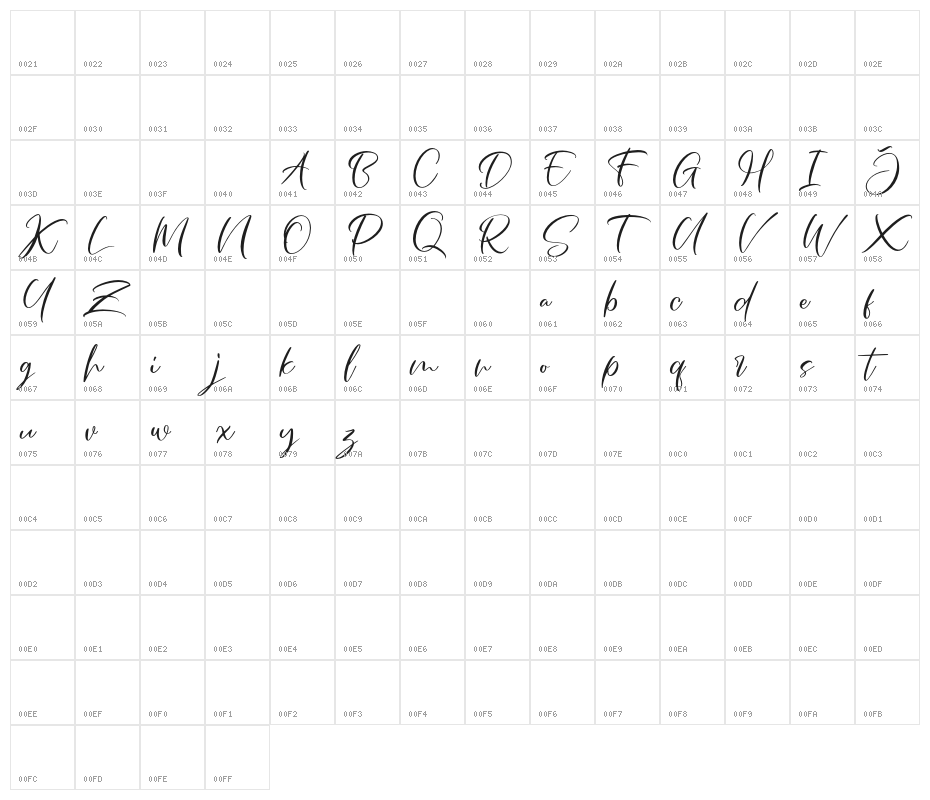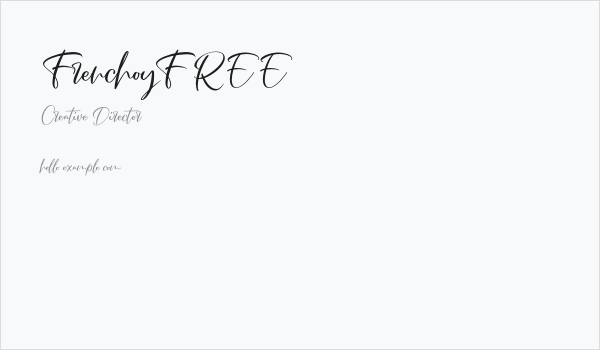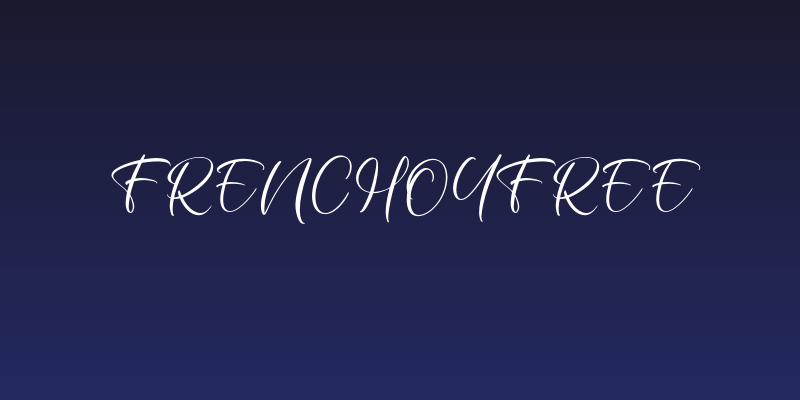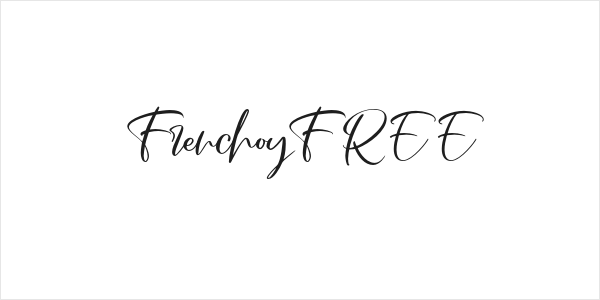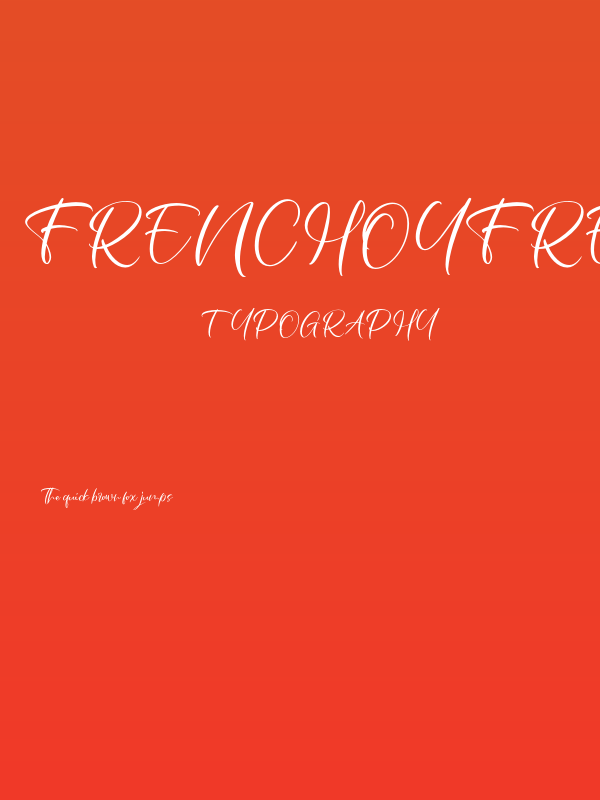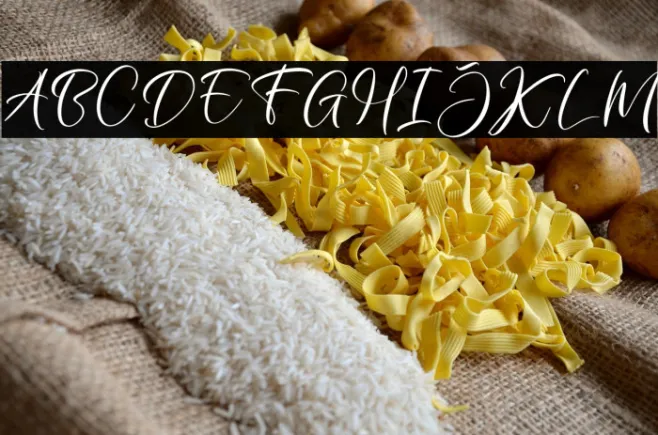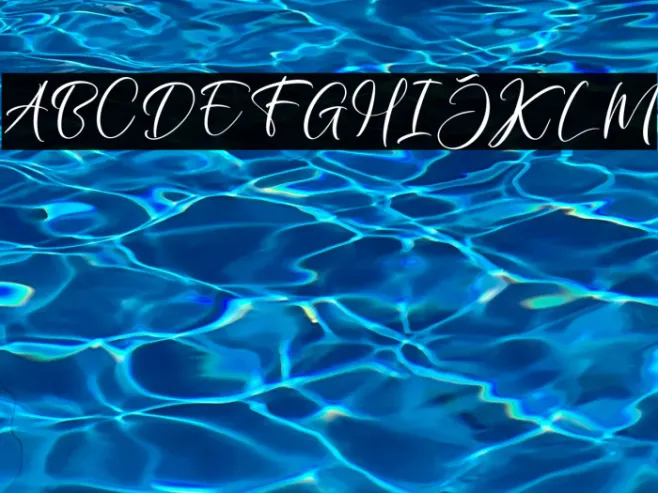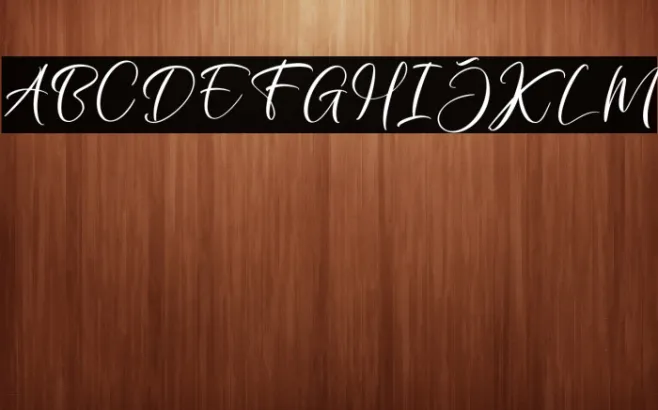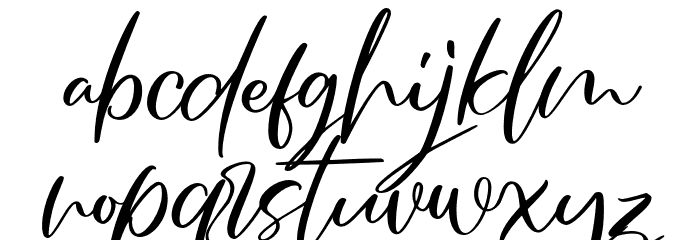
FrenchoyFREE Font
FrenchoyFREE Description
This font features an elegant and flowing script style, characterized by its smooth, cursive strokes and a sense of fluidity. The uppercase letters are gracefully elongated, with a slight slant that adds a dynamic feel. The lowercase letters maintain a consistent rhythm, with some letters featuring distinctive loops and swashes that enhance its decorative appeal. The overall appearance is sophisticated and artistic, making it suitable for projects that require a touch of elegance and creativity. The font's design is both modern and timeless, with a handcrafted quality that adds a personal touch to any text.
| Overall Style | Elegant, Artistic |